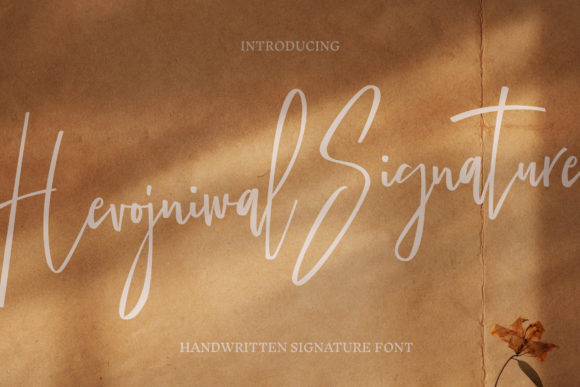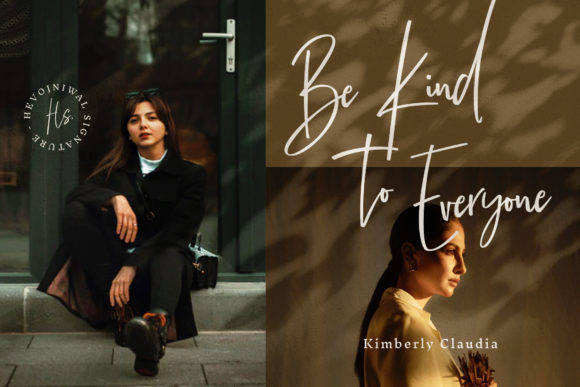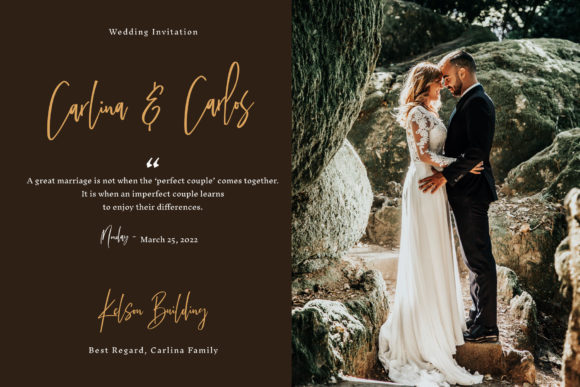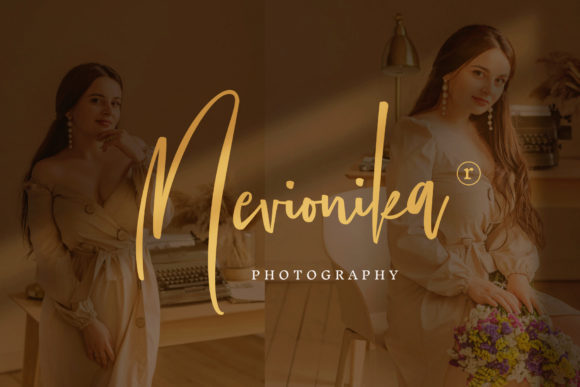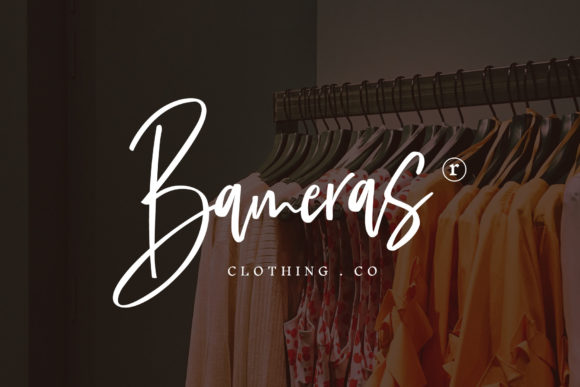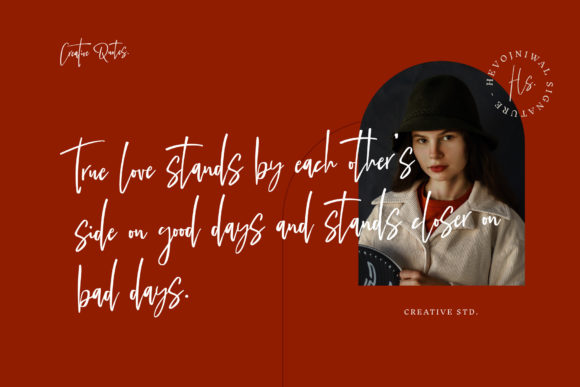
Introduction to Hevojniwal Signature Font
Have you ever been working on a creative project and suddenly, the perfect font just evades you? The words on the page seem dull, and your design feels incomplete. It’s a frustrating feeling, but one that can be easily solved with the right tool – in this case, the stunning Hevojniwal Signature Font.
This beautiful script font is more than just a pretty face; it’s a design resource that can elevate your work and make it truly stand out. With its classy, elegant, and modern look, it’s perfect for logos, branding, invitations, and much more. Plus, it’s PUA encoded, making it easy to access all of the glyphs and swashes you need to create high-quality designs.
Key Features of Hevojniwal Signature Font
- Unique Script Font Design: The Hevojniwal Signature Font is a custom-designed script font ideal for creative projects, offering a distinct and elegant look.
- Large Character Set: The Hevojniwal Signature Font includes a large character set, including uppercase and lowercase letters, numbers, and special characters.
- Perfect for Logos and Signatures: The font’s elegant design makes it perfect for creating logos, signatures, and other design elements that require a touch of sophistication.
Honest Review: Hevojniwal Signature Font
As a designer, I’m always on the lookout for high-quality design resources to elevate my creative projects. Recently, I stumbled upon the Hevojniwal Signature Font, which I’ll be sharing my honest thoughts on.
- ✨ The font is incredibly versatile and can be used for a wide range of design applications, from logos to typography.
- ✨ The transparent background feature allows for seamless integration with any design element.
- ⚠️ The font may not be suitable for all design projects, particularly those requiring a more modern or minimalist aesthetic.
- ⚠️ The font’s quality may vary depending on the resolution and scaling of the design.
Overall, I’m impressed with the Hevojniwal Signature Font’s potential as a design resource. While it may not be perfect, its versatility and high quality make it a valuable addition to any designer’s toolkit. If you’re looking for a unique and eye-catching font for your next creative project, I’d definitely recommend giving it a try.
The Hevojniwal Signature Font is ideal for:
- Personalized business cards and letterheads.
- Branding materials, such as logos and social media graphics.
- Designing invitations and event materials.